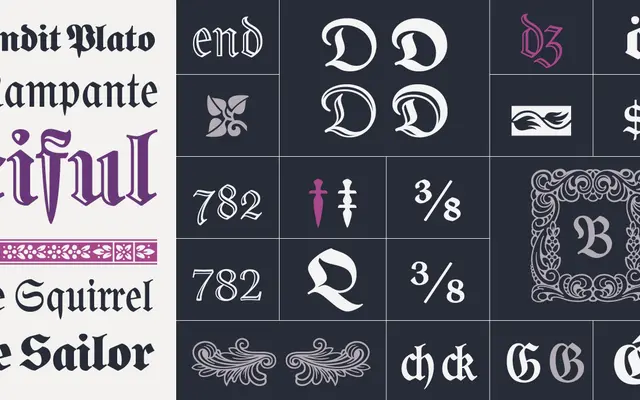
Gorgias
Pampatype · José Manuel López Rocha · 2014
A Schulfraktur revival by José Manuel López Rocha, drawn from a 19th-century German school book source and expanded with ornaments, initials and open-face variants.
Named after the book in which López Rocha first encountered the original Schulfraktur, Gorgias comes in four styles: Regular and Black in both solid and open (Deco) forms. Each font includes 1,444 characters, covering old and new fraktur style sets, historical and old German ligatures, smart framed drop caps, ornate borders and book ornaments. An early version was awarded at the Tipos Latinos 8th Biennale in 2014.
Gorgias is explicitly a Schulfraktur revival, a specific blackletter style used in 19th-century German school books, with all four variants maintaining fraktur construction and ornamental tradition.